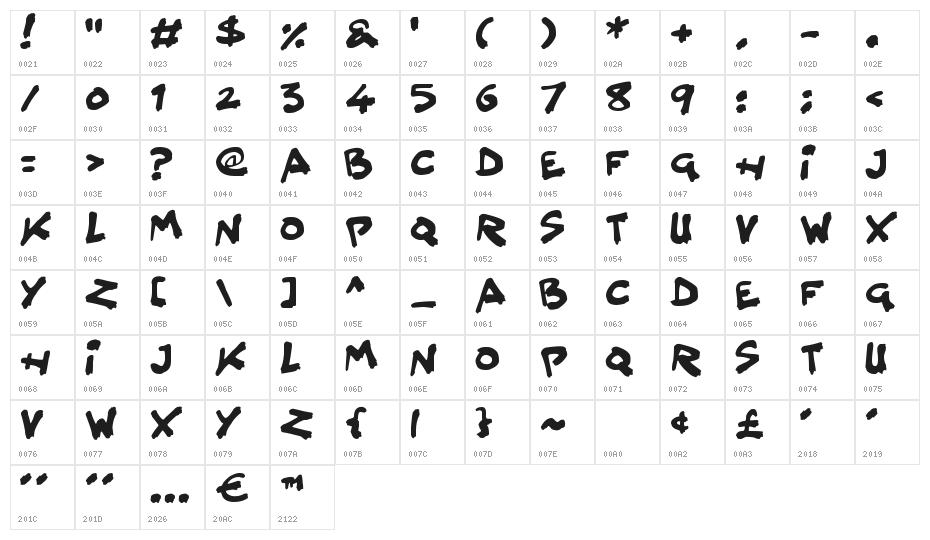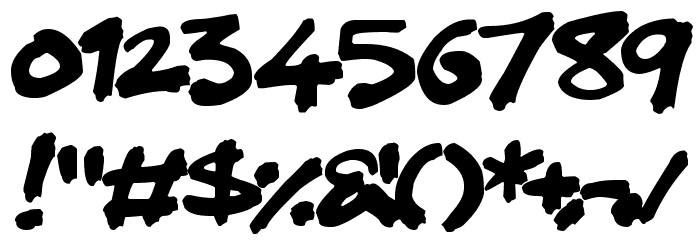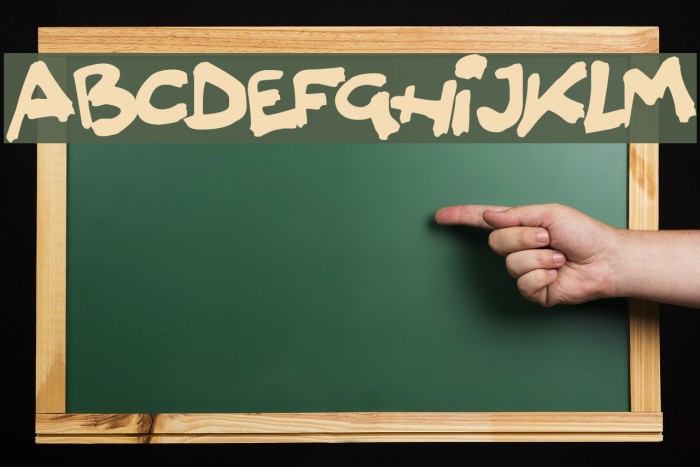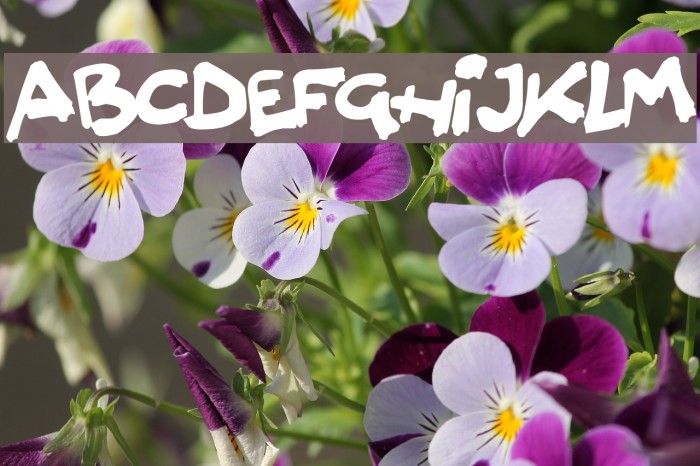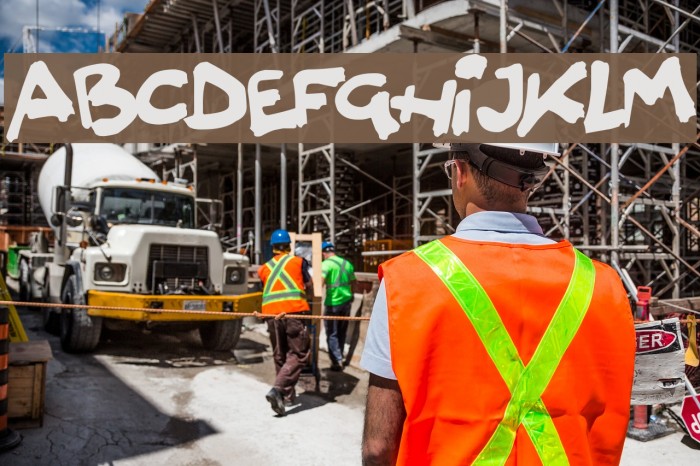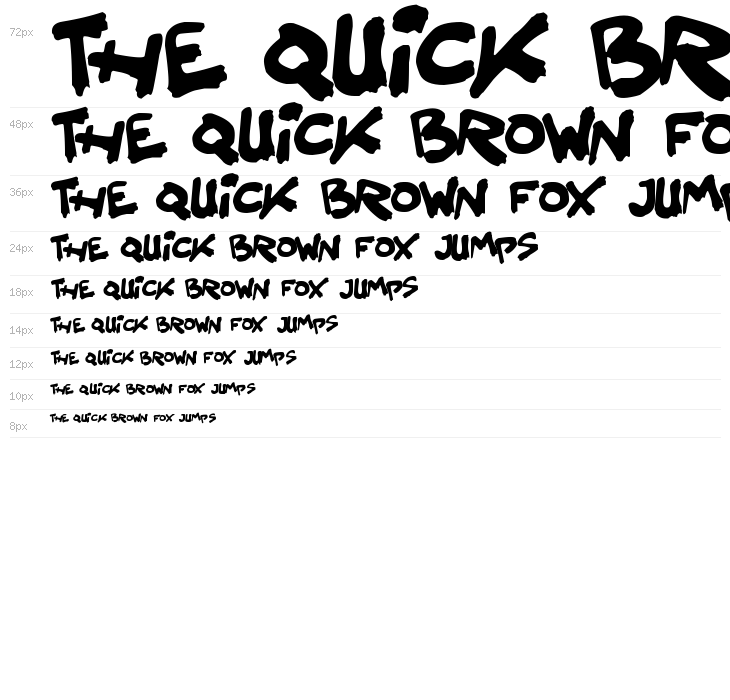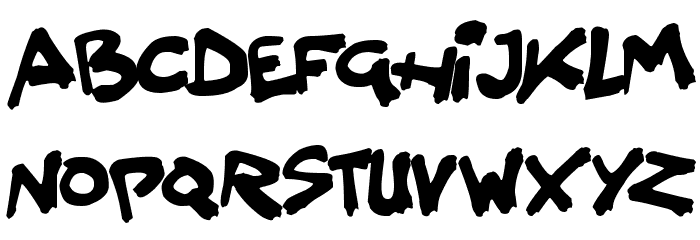
Splatter Kings Font
Splatter Kings Description
This font features a bold and expressive style with a graffiti-like appearance. The characters are thick and have a splattered, uneven texture, giving them a dynamic and energetic feel. The uppercase and lowercase letters maintain a consistent style, with rounded edges and varying stroke widths that add to the font's informal and artistic look. The numbers and special characters follow the same design principles, ensuring a cohesive appearance across all glyphs. This font is ideal for projects that require a bold statement or an urban, street-art aesthetic.
| Overall Style | Urban, Artistic, Energetic |
| Proposed Projects | Perfect for street art designs, music album covers, posters, and urban-themed branding. |